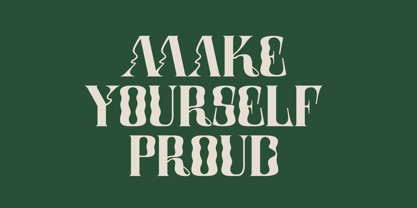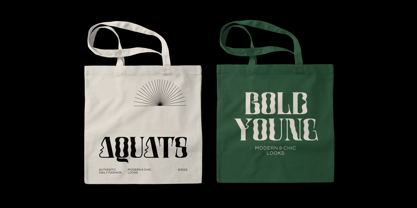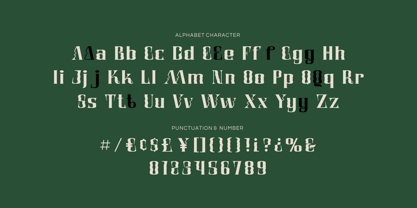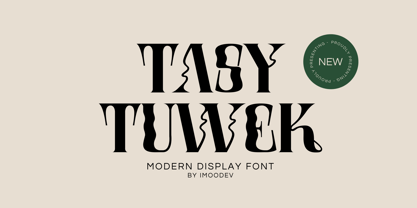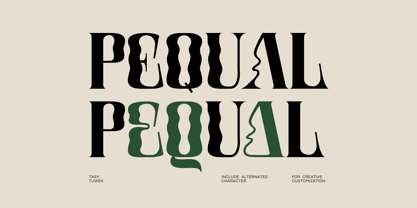
Tasy Tuwek
The Tasy Tuwek Font Family was designed by Aulia Savira Putri and published by Imoodev. Tasy Tuwek contains 1 styles. More about this family
Introducing 'Tasy Tuwek' is a modern, bold display typeface featuring stylized, elongated serifs with distinct wavy and curvy details. It blends sharp lines with fluid shapes, creating an artistic, contemporary, and slightly quirky vibe.
It feels artsy, trendy, and very fresh—perfect for statement graphics, fashion, branding, or when you're looking to drop something visually unforgettable.
Font Tasy Tuwek is well-suited for a wide range of creative applications, including logotypes, stickers, packaging design, cricut projects, poster, headlines, brand identity, t-shirts and apparel, posters, magazines, product packaging, cover book, and any other design projects you can imagine